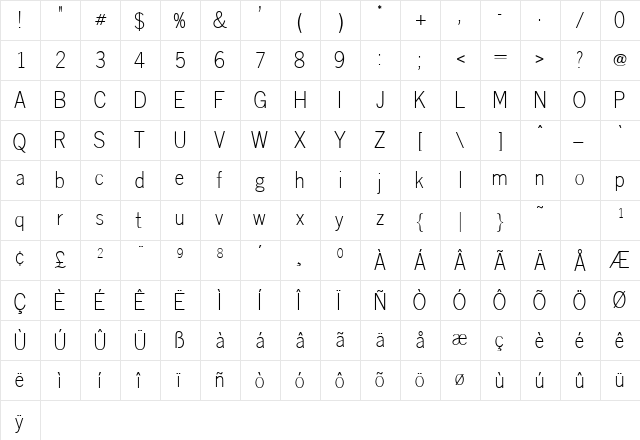
Lufton Regular
Design Context for Lufton Typeface
Lufton is a composed and adaptable typeface that performs quietly and consistently across a wide range of design contexts.